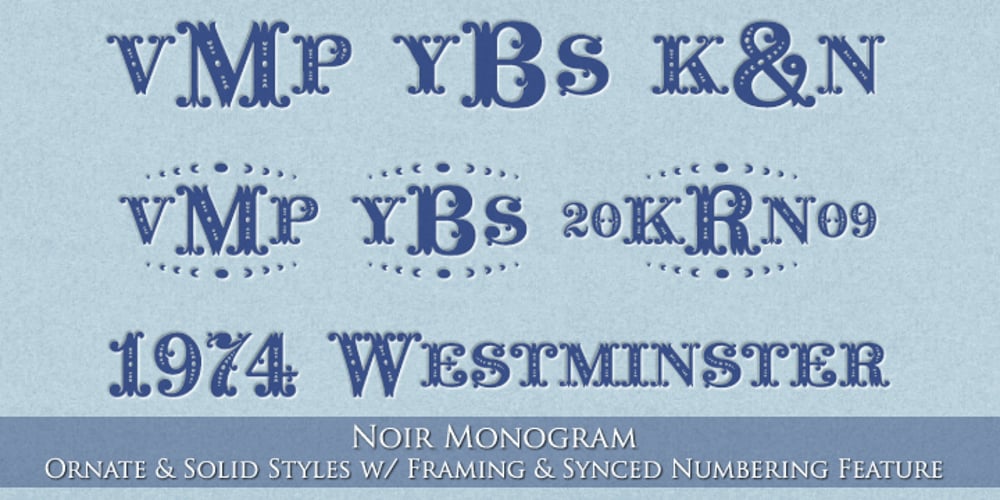
MFC Noir Monogram Font Family was designed by Brian J. Bonislawsky, George J. Becker and published by Monogram Fonts Co.. MFC Noir Monogram contains 25 styles and family package options. The inspiration source for Noir Monogram is the “Pearl” letterset from the 1854 Becker’s Ornamental Penmanship and Draughtsman’s Letter Book by George J. Becker. The original design was a highly ornate steelplate engraving which was simplified to a solid letterstyle with minimal detailings. Noir Monogram is capable of several traditional monogram forms with unique detailing features utilizing Ligature & Stylistic Alternates features. Download and view the Noir Monogram Guidebook if you would like to learn a little more. There is a guidebook for both the Pro and Standard fonts included in the font package. Noir Monogram comes complete with both Pro and Standard format fonts. For those with programs that can take advantage of OpenType features, the Pro fonts are for you, but for others without the ability to use OpenType features, we’ve created separate fonts that make up the styles contained in the Pro font.